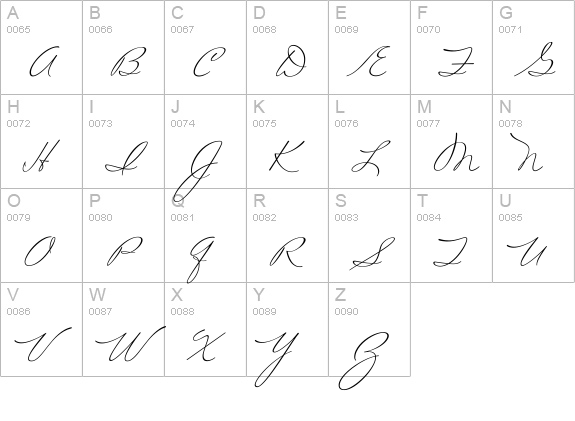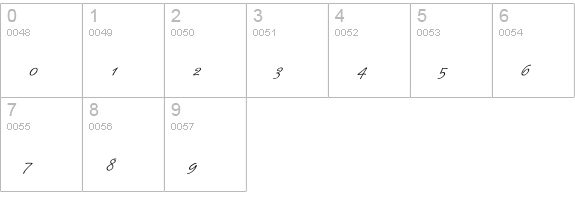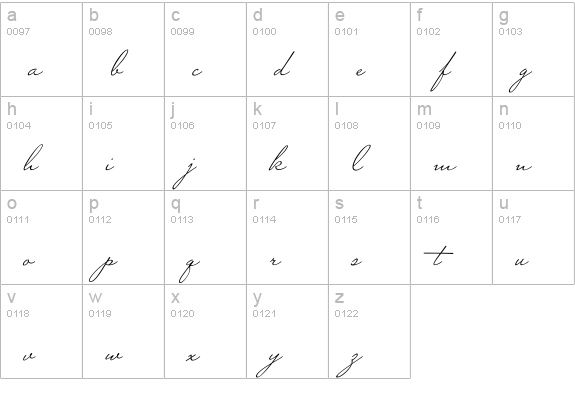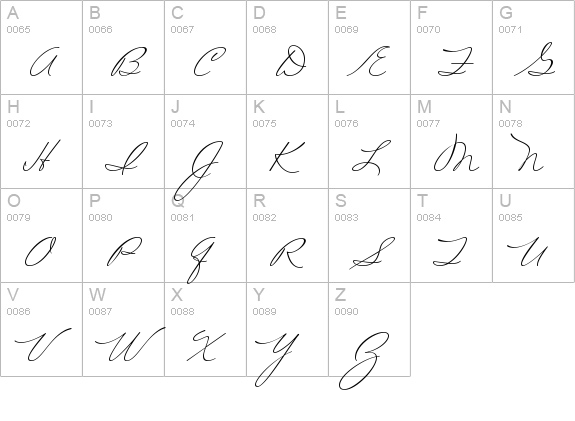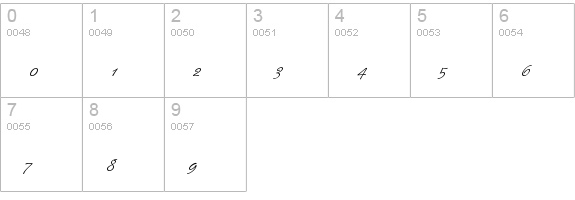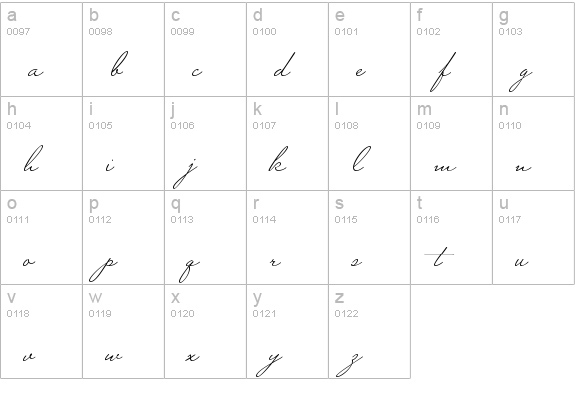
Mr Sheffield Font Details
Introducing Mr Sheffield font, a sleek and sophisticated typeface that exudes elegance and charm. With its clean lines and modern aesthetic, Mr Sheffield is perfect for adding a touch of class to your designs. This versatile font is ideal for a wide range of projects, from branding and advertising to invitations and signage. What makes Mr Sheffield even more appealing is that it is available for free download at FontsMarket.com. That's right, you can elevate your design game with this stunning font without breaking the bank. Don't miss out on the opportunity to add Mr Sheffield to your font collection and take your projects to the next level.